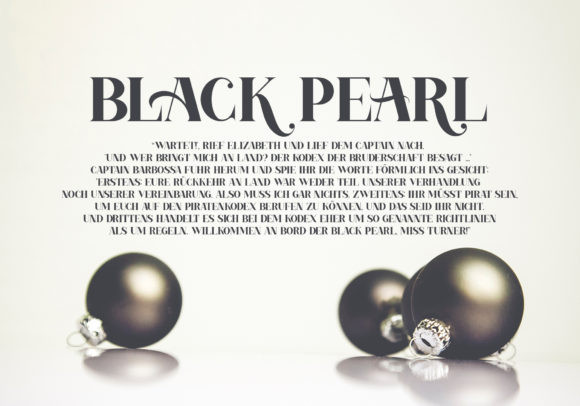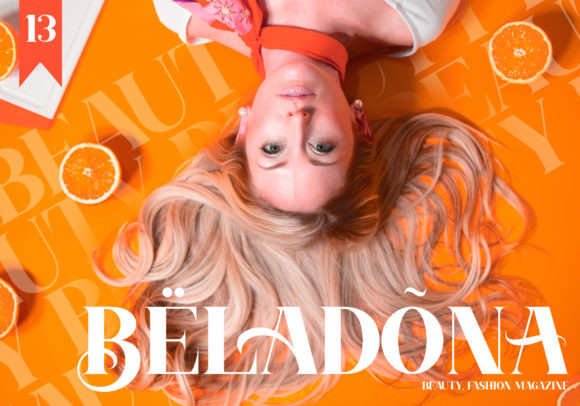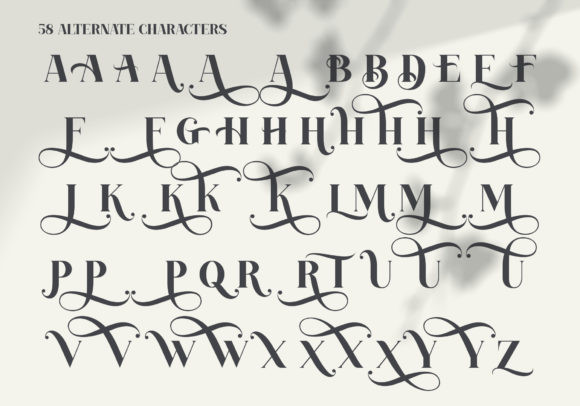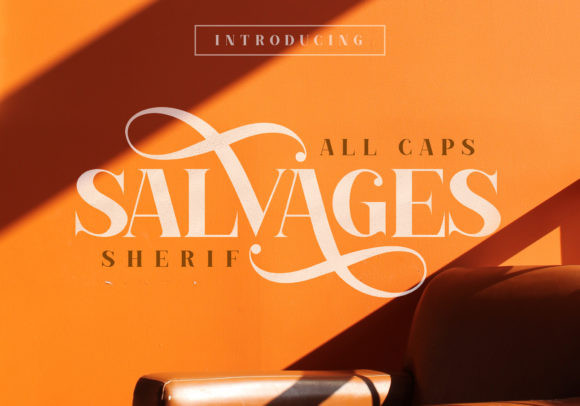
Salvages Font
Salvages is an amazing and unique serif font with an incredible feel. It will add a sophisticated and modern touch to any creative project!